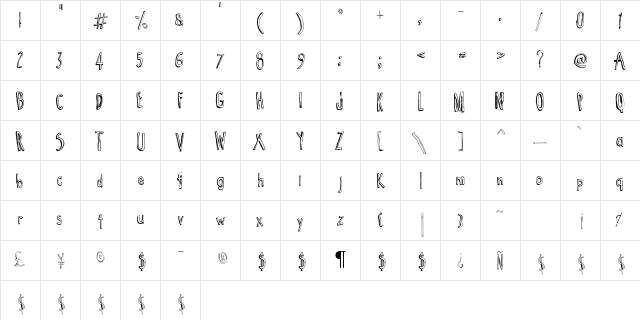
Cartoon Tunes Regular
Design Context for Cartoon Tunes Typeface
Cartoon Tunes has an approachable, lighthearted character — its loose, expressive forms are well-suited to children's content, casual branding, and fun-first design.
Font Pairing: Pairs well with a rounded or humanist sans for body copy, maintaining the friendly tone without relying on Cartoon Tunes to carry extended reading.
Pro Tip: Avoid using Cartoon Tunes for long passages of text — it works best for headlines, labels, and short calls to action.